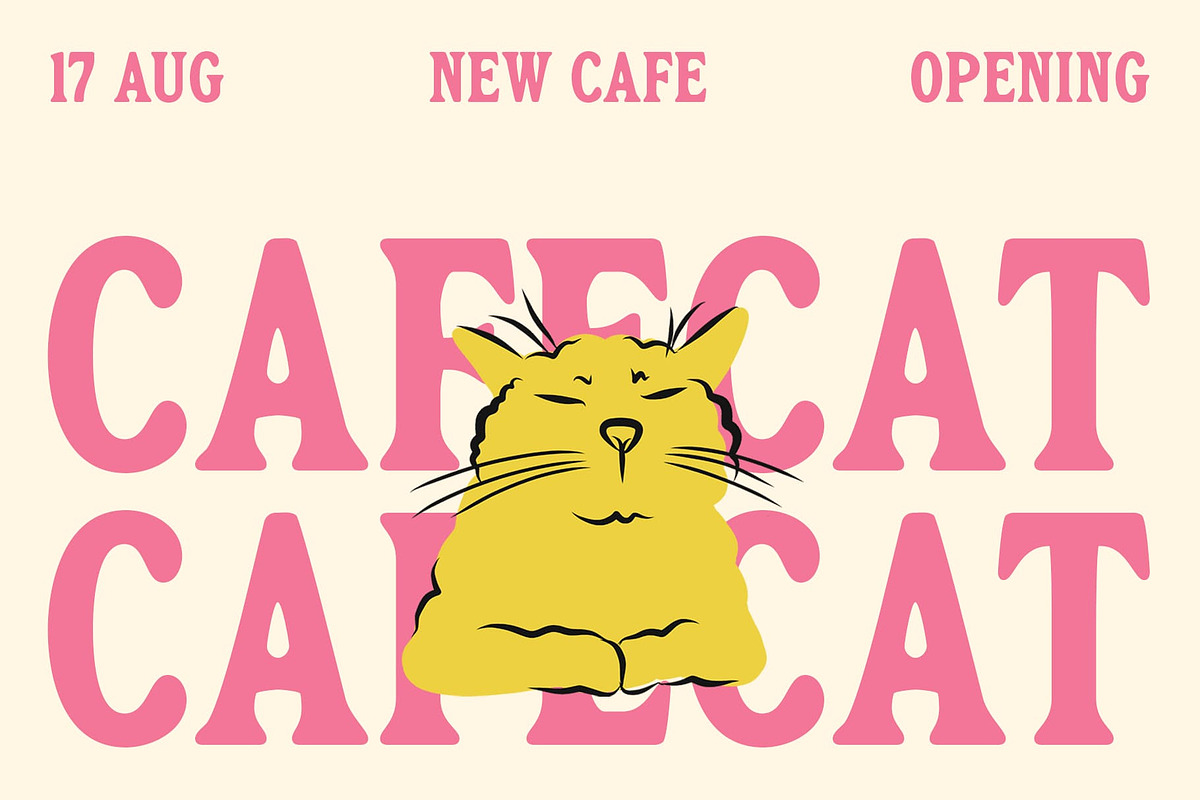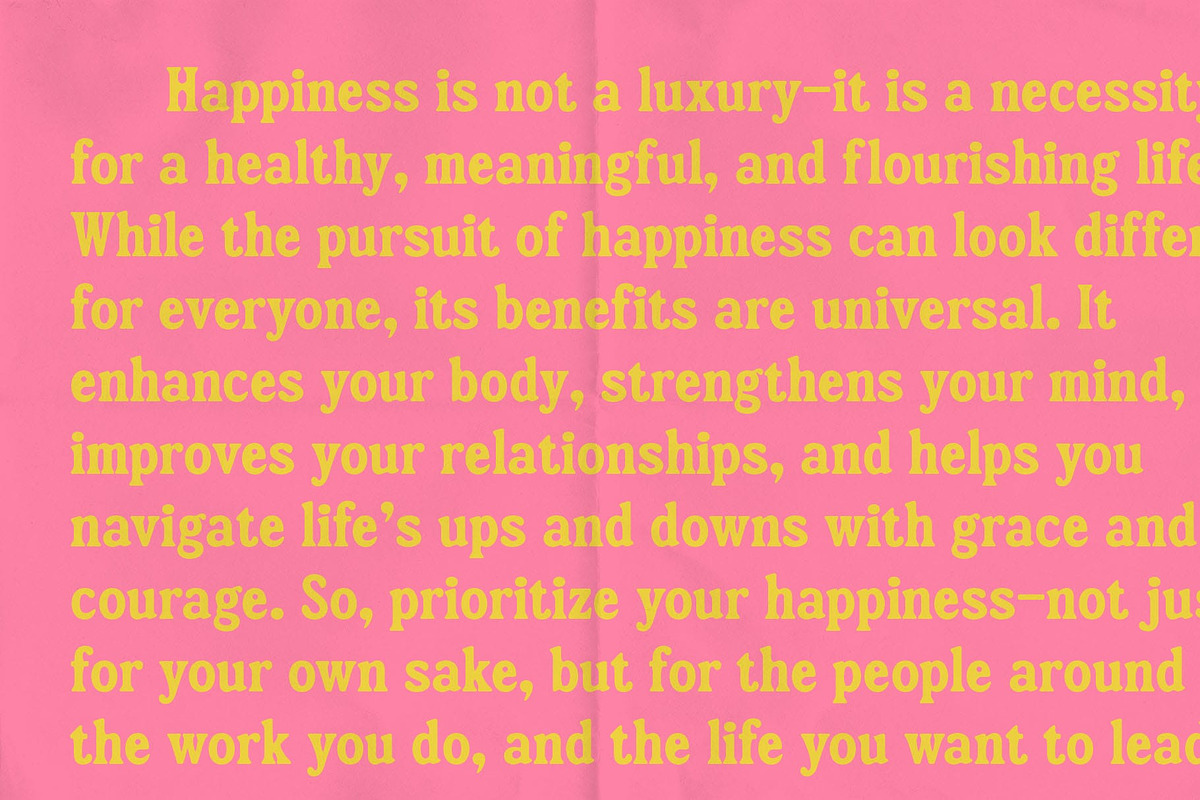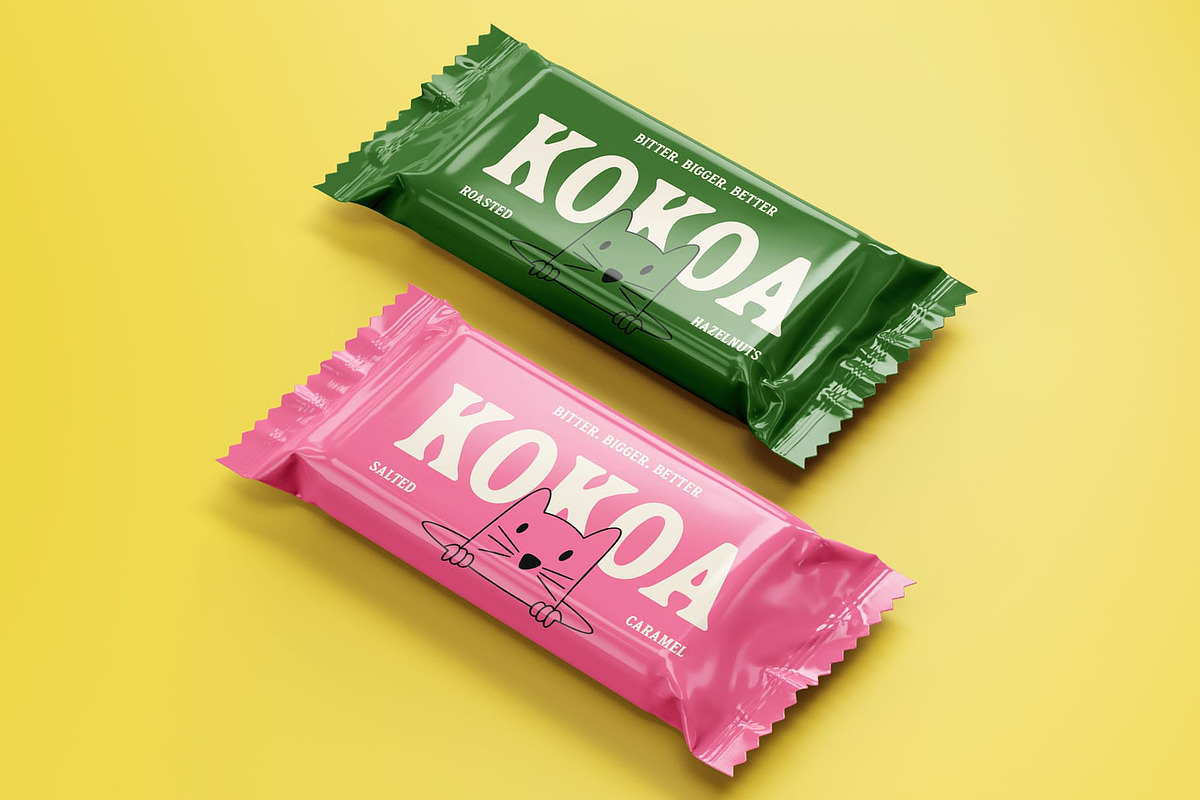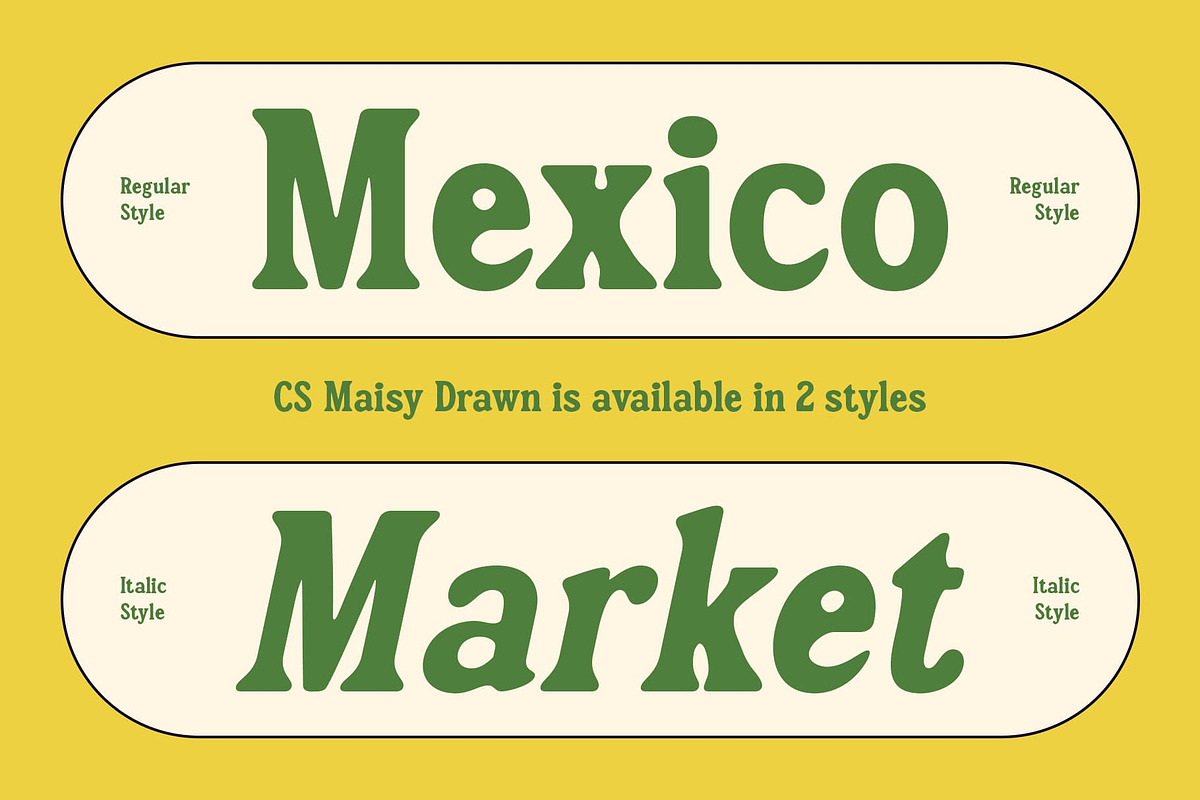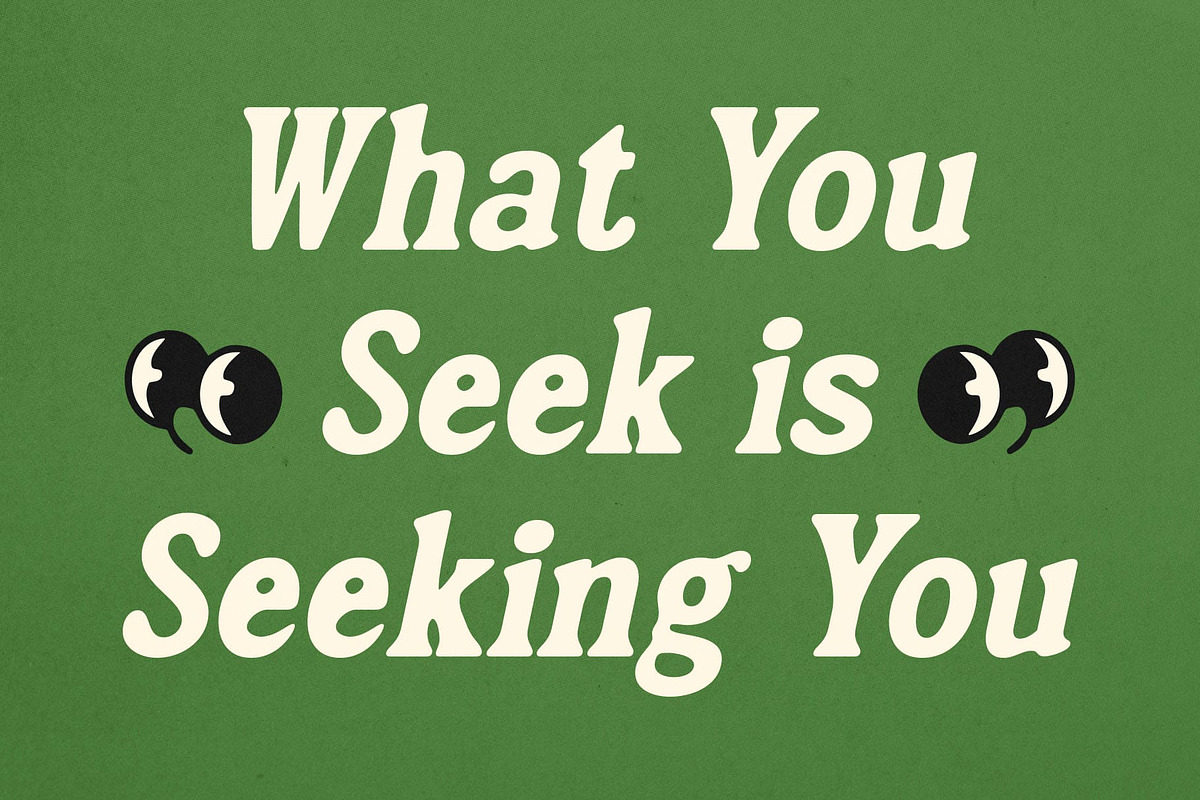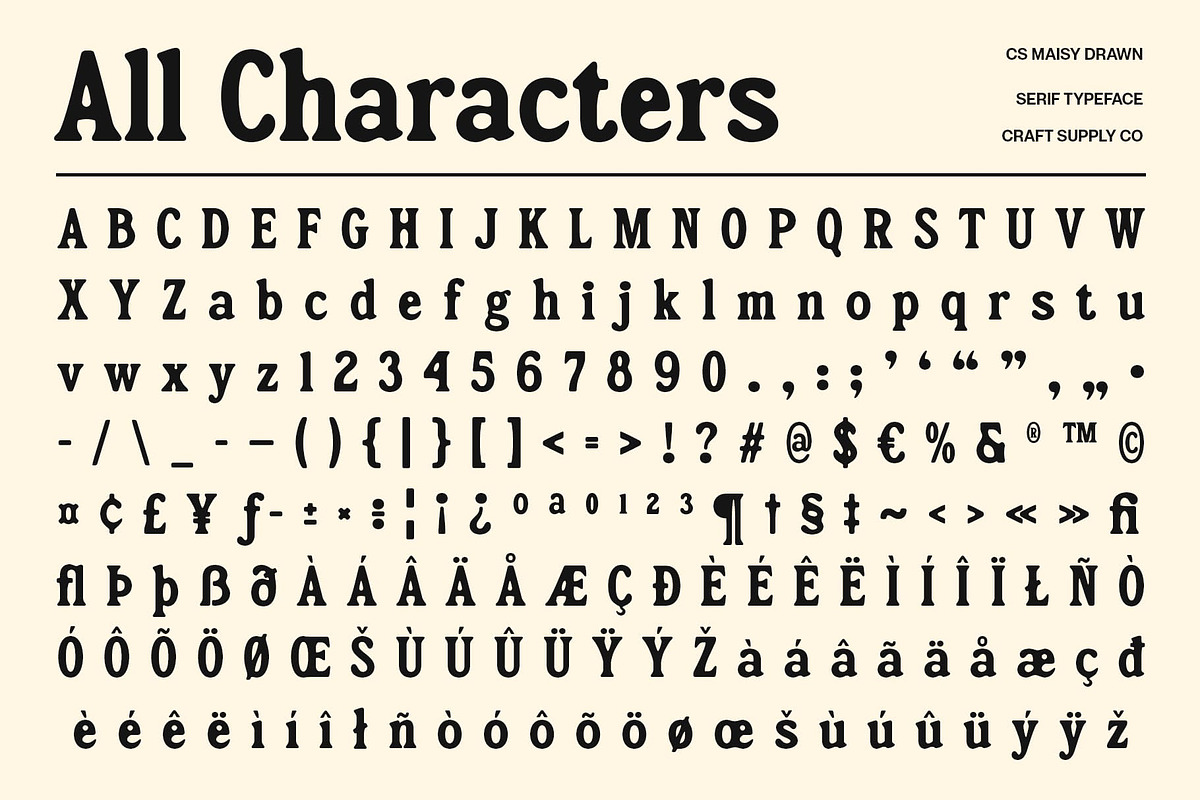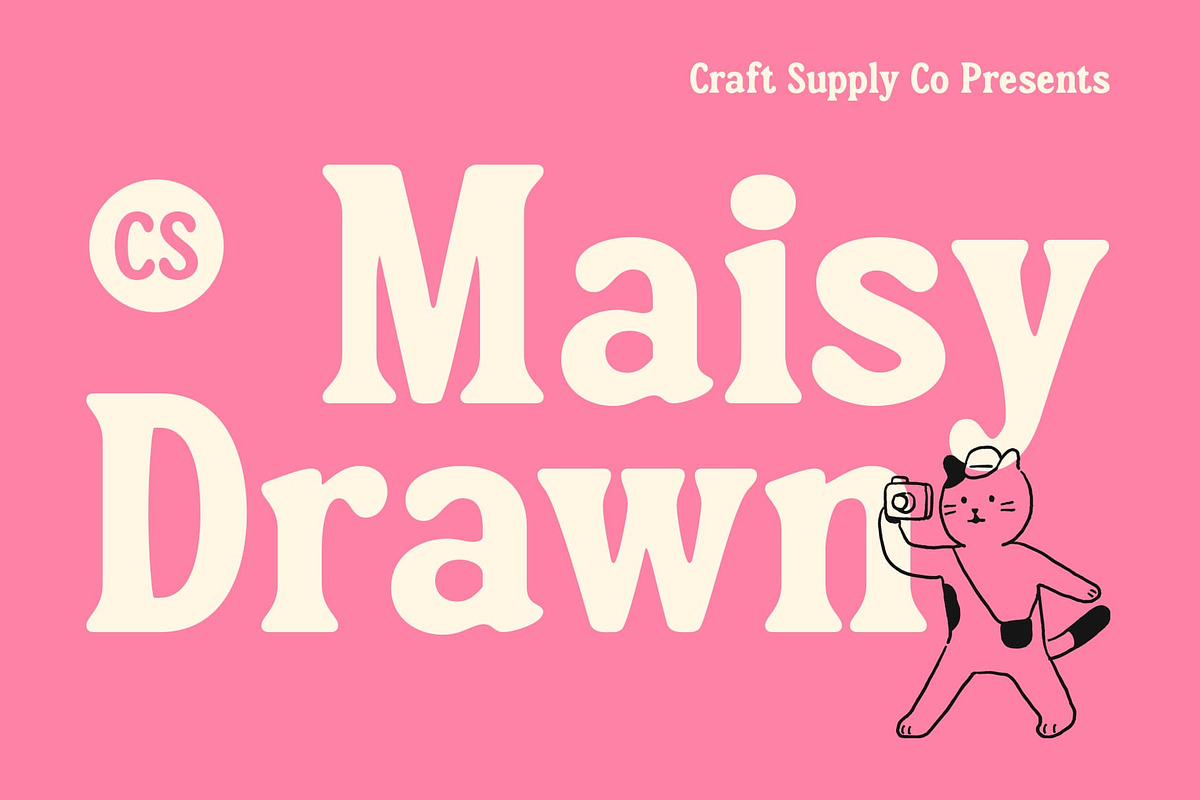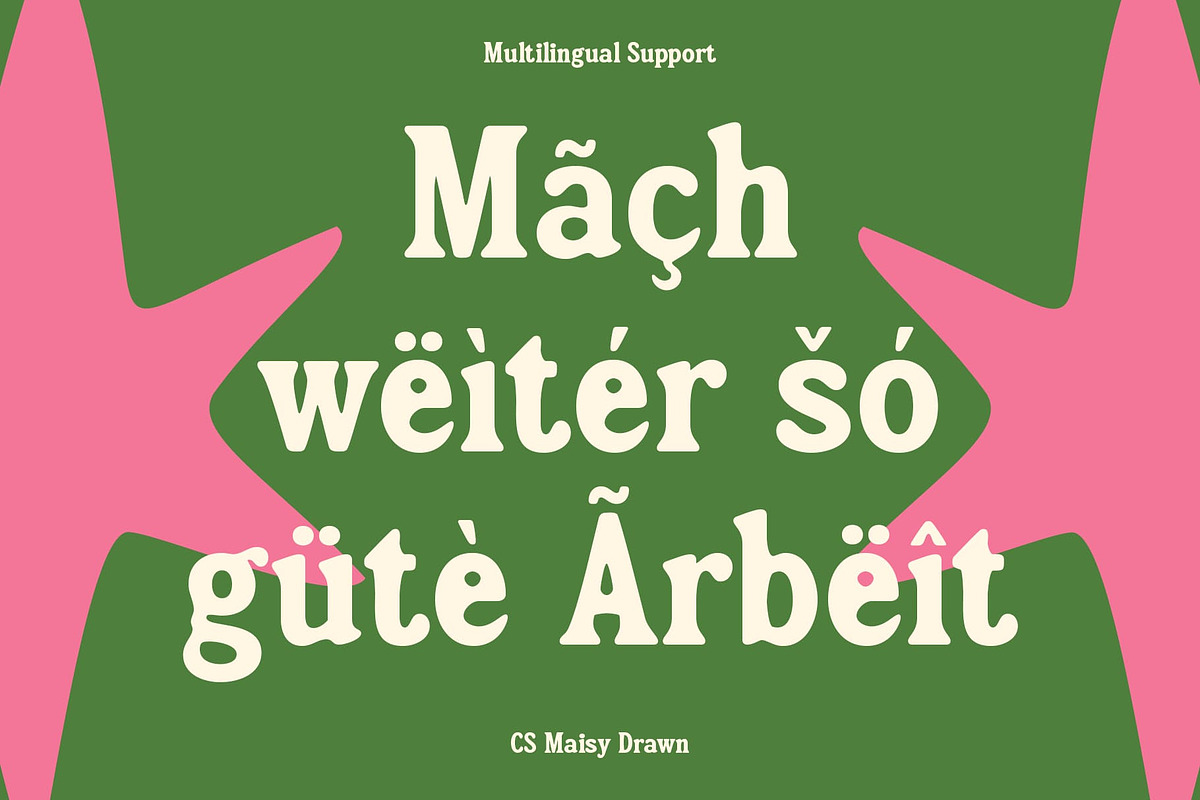
CS Maisy Drawn
CS Maisy Drawn – A Bold Serif Font with Retro Handcrafted Energy
Retro Boldness Meets Artistic Flair CS Maisy Drawn is a classic serif font that combines bold, clean shapes with a funky retro vibe. It carries the weight and elegance of a traditional serif but introduces a fresh twist with playful proportions and expressive details, giving it a look that’s both powerful and charismatic.
Hand-Drawn Texture for Warmth and Movement Each letterform is styled with a drawn effect, adding handcrafted imperfections that breathe life into the type. This touch of texture softens the structure and injects human warmth and motion—perfect for designs that aim to feel vibrant, personal, and full of personality.
Creative Nostalgia for Impactful Design The font’s retro aesthetic brings a sense of creative nostalgia, making it an ideal choice for standout visuals. Whether you’re crafting music posters, editorial illustrations, or funky brand identities, this lively vintage, playful, and eye-catching font offers a striking presence that captures attention while delivering charm.
A Fusion of Classic and Contemporary Style This bold, quirky, and nostalgic font bridges the gap between vintage elegance and modern expression. It’s versatile enough to be used in both headline and decorative roles—offering a unique tone for projects that demand character, creativity, and a touch of handmade authenticity.